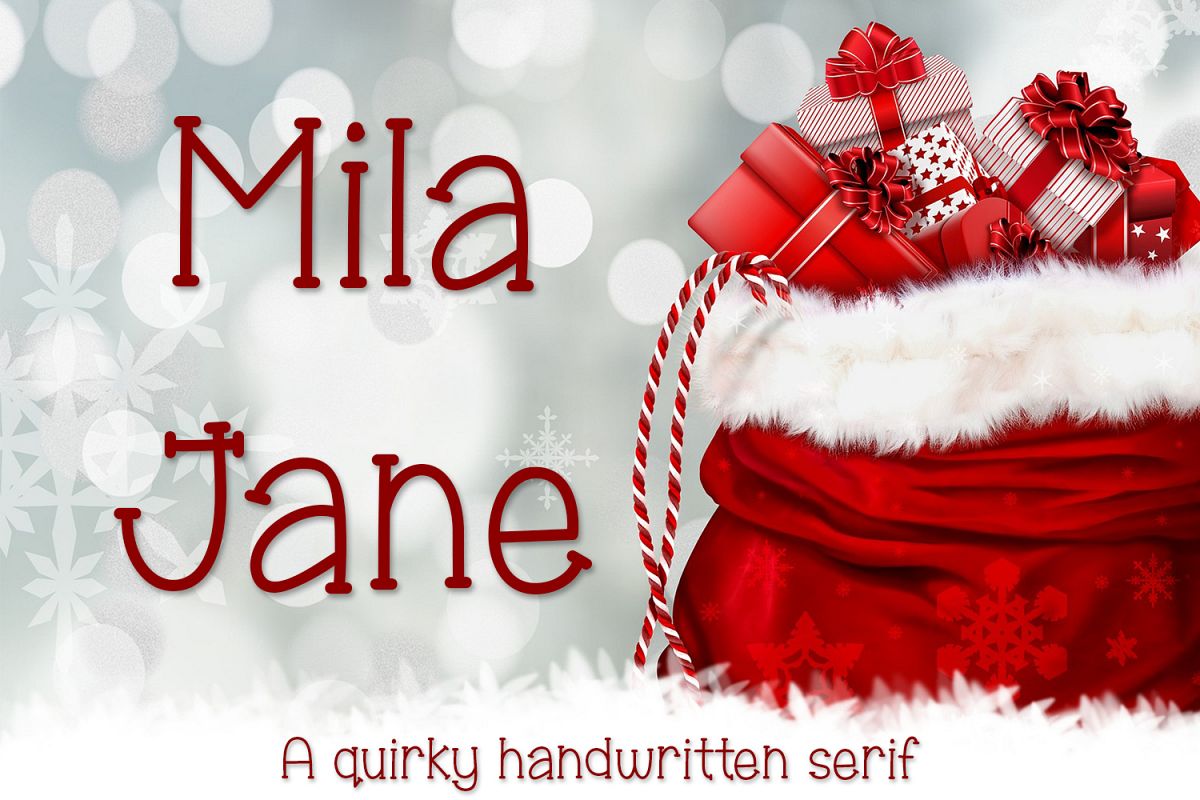
Mila Jane is a cute and quirky handwritten serif.
Includes support for multiple European languages, a bonus ornaments file full of little doodles, and includes both OTF and TTF files.
Mila Jane works well on apparel, invitations, posters, kids designs and much more.